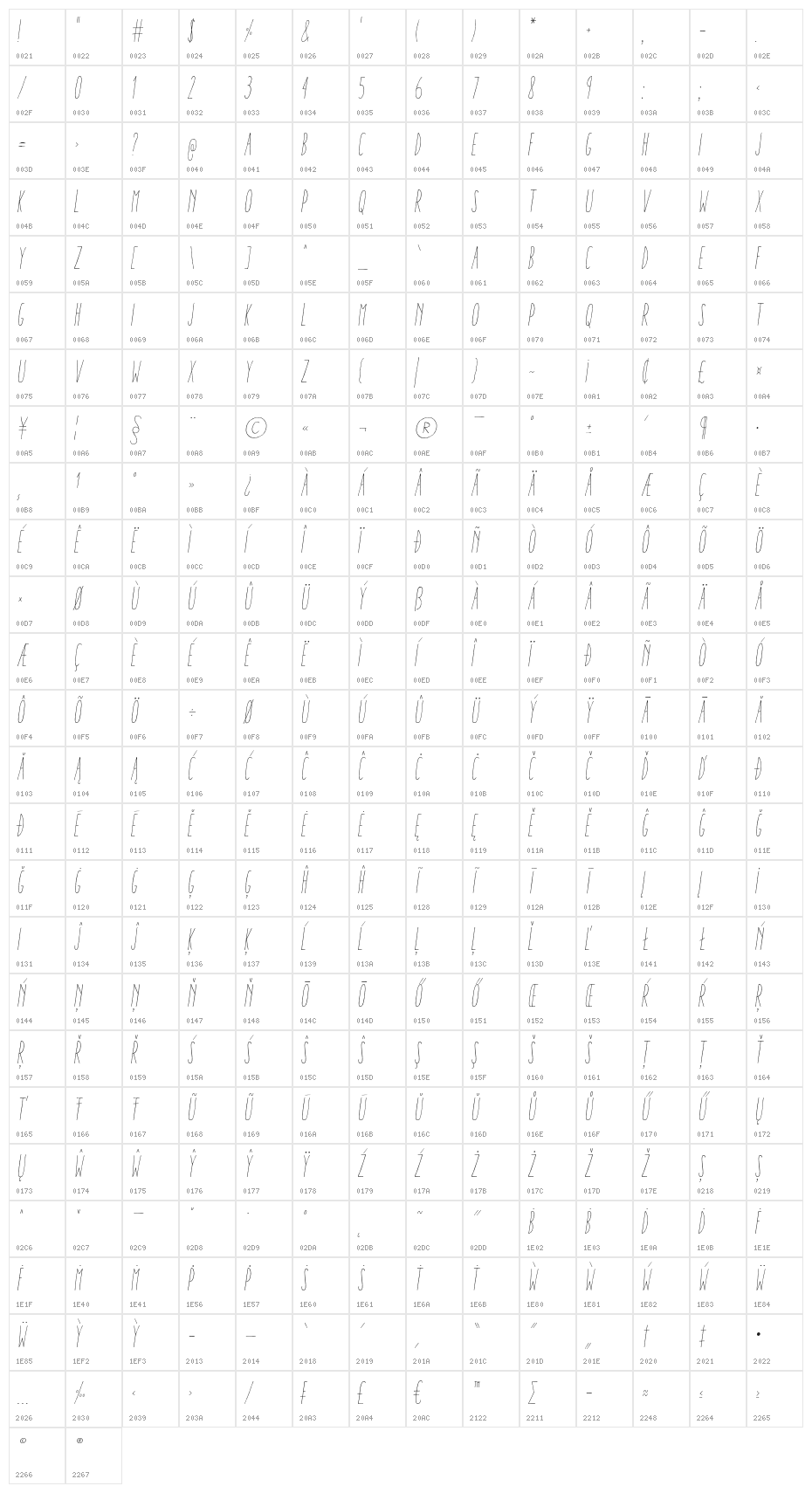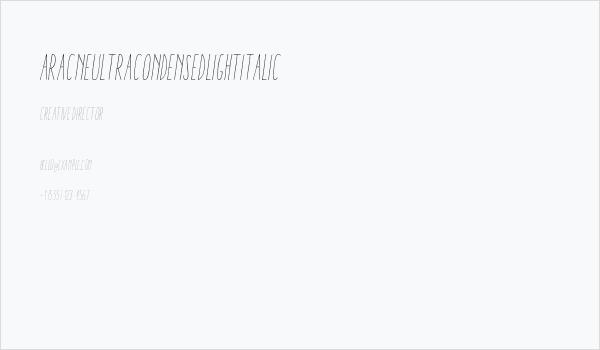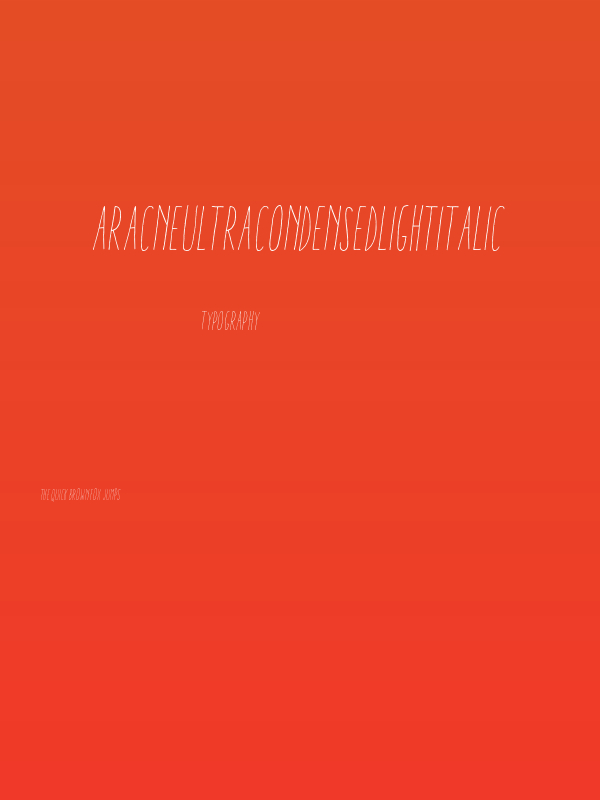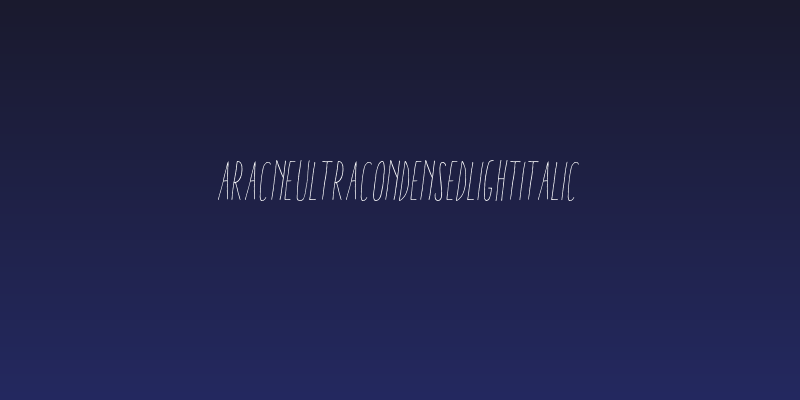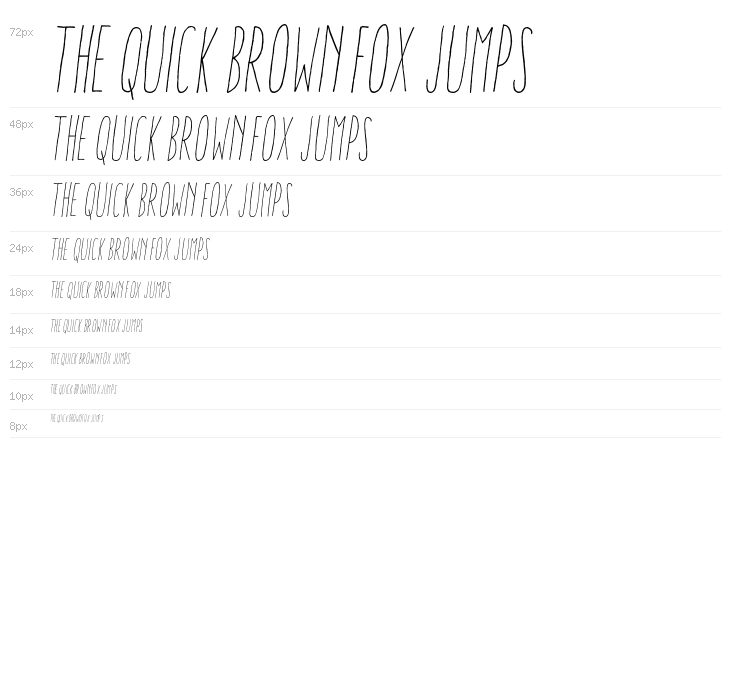
AracneUltraCondensedLightItalic Font
AracneUltraCondensedLightItalic Description
This font features a highly condensed and ultra-light design with an italic slant, giving it a sleek and modern appearance. The characters are elongated and narrow, emphasizing verticality and elegance. The strokes are consistently thin, contributing to a delicate and airy feel. Despite its lightness, the font maintains clarity and readability, making it suitable for various design contexts. The overall style is minimalist, with a contemporary edge that can add sophistication to any project. The spacing between characters is tight, enhancing the condensed nature of the font.
| Proposed Projects | Ideal for fashion magazines, modern branding, elegant invitations, and minimalist posters. |